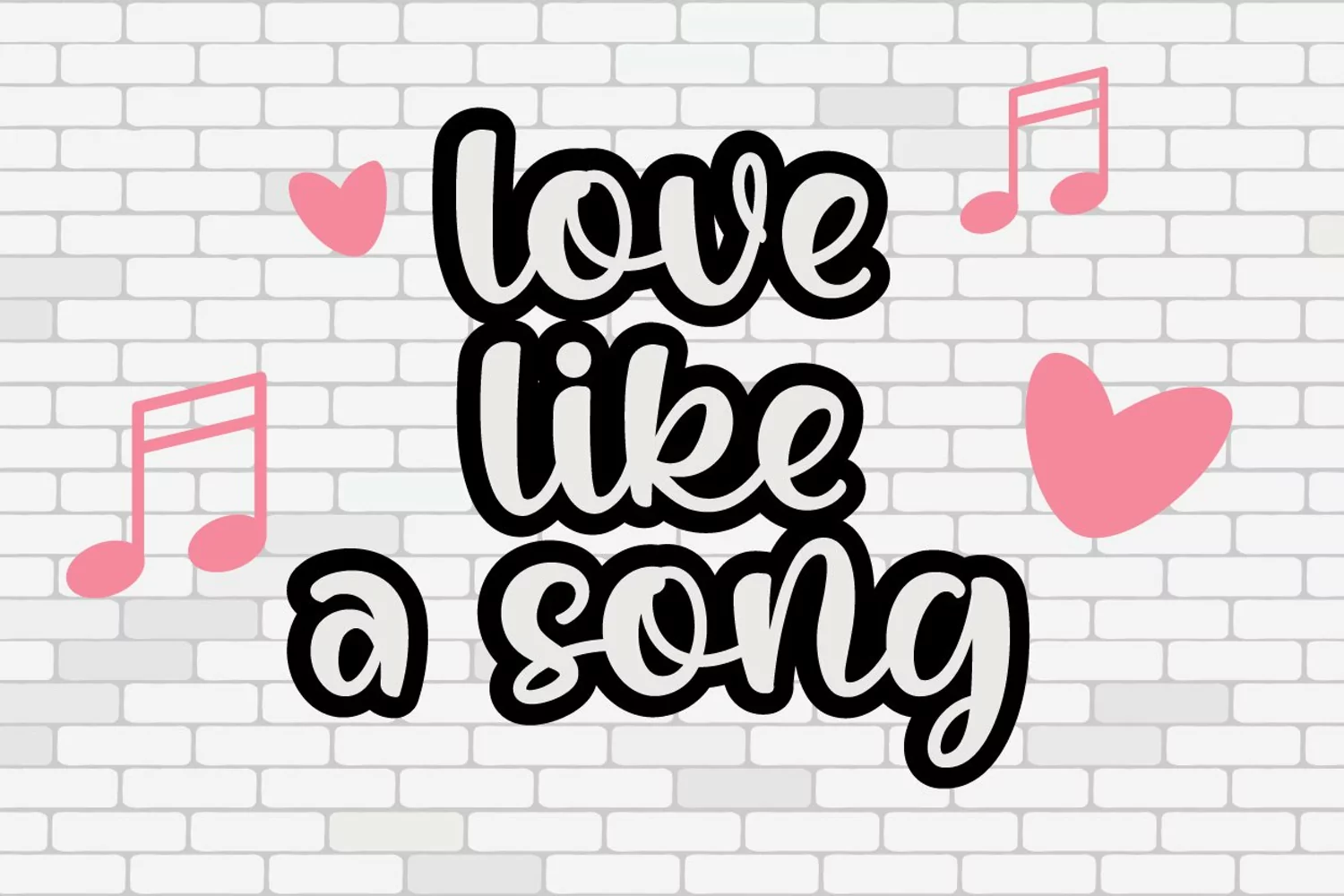
London Summer is modern and cute calligraphy style. Its friendly feel makes this font incredibly versatile, fitting a wide range of contexts. It looks stunning on thank you cards, quotes, greeting cards, logos, business cards and every other design which needs of a art. Add it to your creative ideas and notice how it makes them stand out!